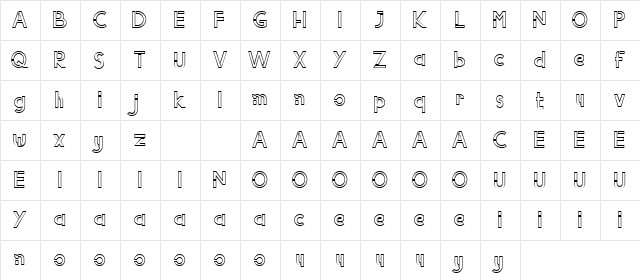
Ghostlike Demo Outline
| Foundry | Edric Studio |
| Designer | Ega & Sarah Suci P |
Design Context for Ghostlike Demo Typeface
Ghostlike Demo brings ornamental detail and strong personality to headlines and identities, where visual impact matters more than quiet functionality.
Font Pairing: Pair with a clean neutral sans-serif for body copy to let Ghostlike Demo's character lead without overwhelming the composition.
Pro Tip: Use Ghostlike Demo exclusively at display sizes — it was designed to be seen, not read at length. Let a neutral companion handle body copy.